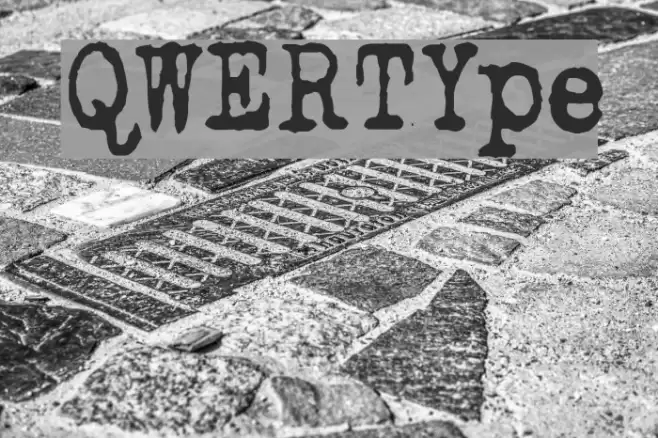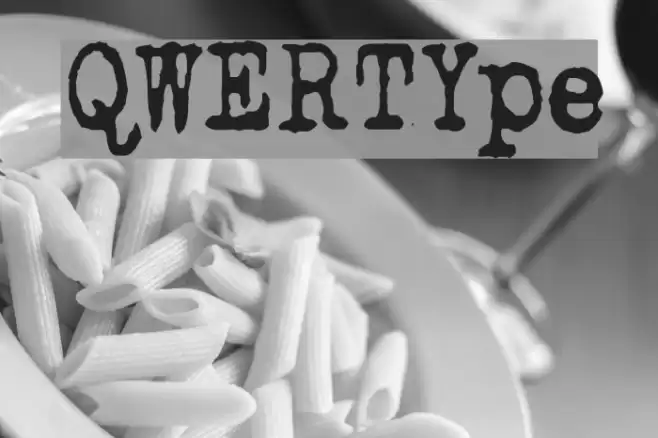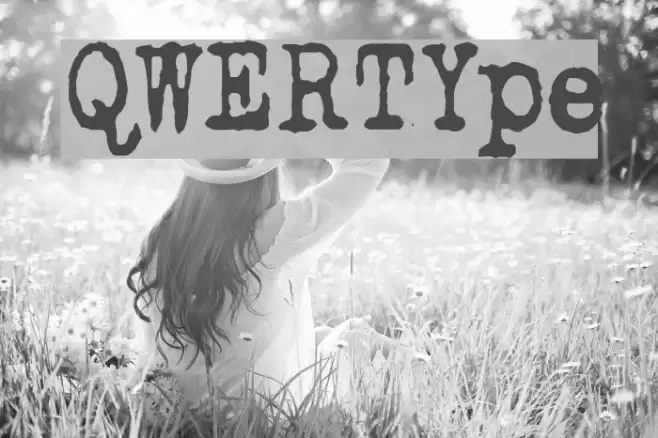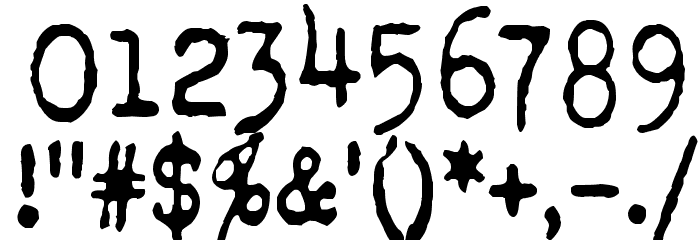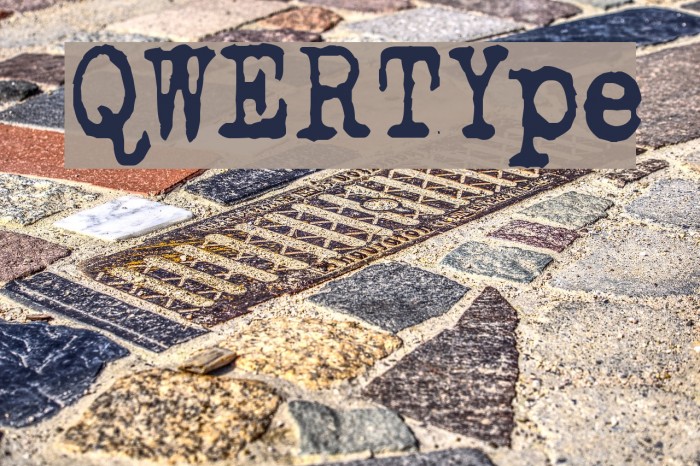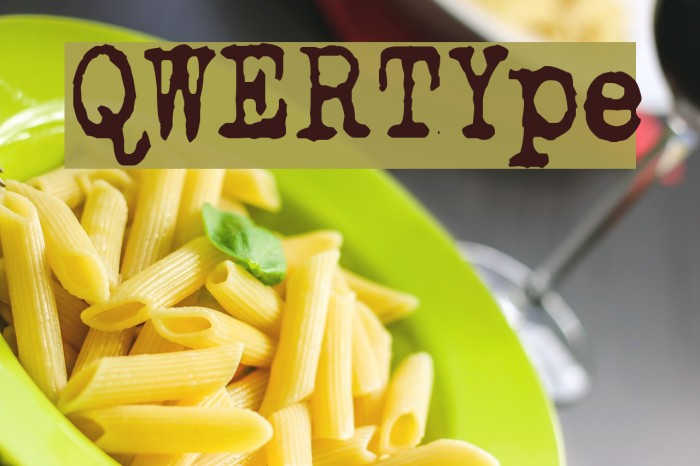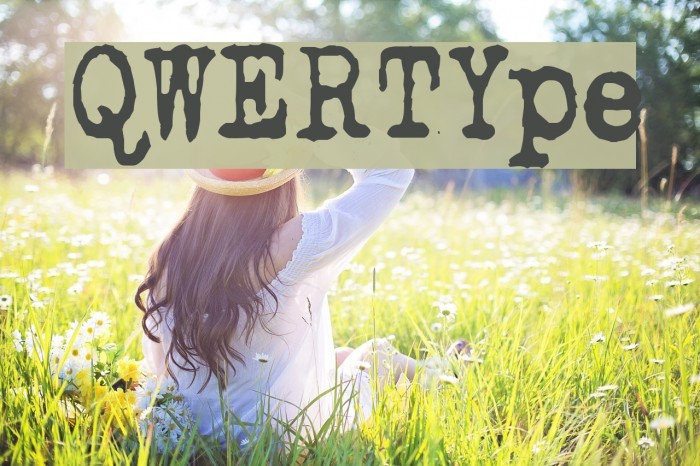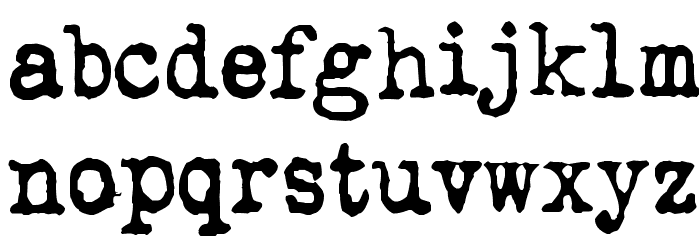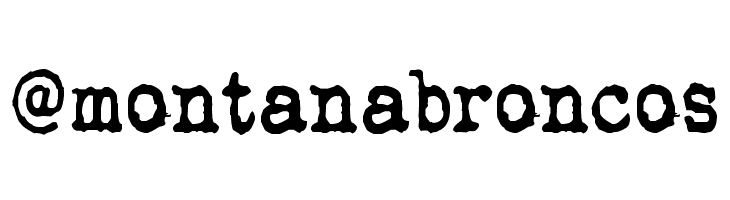
QWERTYpe
This font features a rugged, distressed appearance reminiscent of vintage typewriter text. The characters have a bold, uneven stroke with a slightly irregular baseline, giving it a handcrafted feel. The uppercase and lowercase letters maintain a consistent style, with rounded edges and a slightly condensed form. Numerals and special characters follow the same aesthetic, adding to the font's cohesive look. The overall design is both nostalgic and modern, making it versatile for various creative projects.
A bold, distressed typewriter-style font with a vintage feel.
- Proposed Projects: Ideal for retro-themed designs, posters, branding, and creative projects that require a vintage or handcrafted look.
- Width: Condensed
- Overall Style: Vintage
- Use Case: Headlines, Logos, Posters